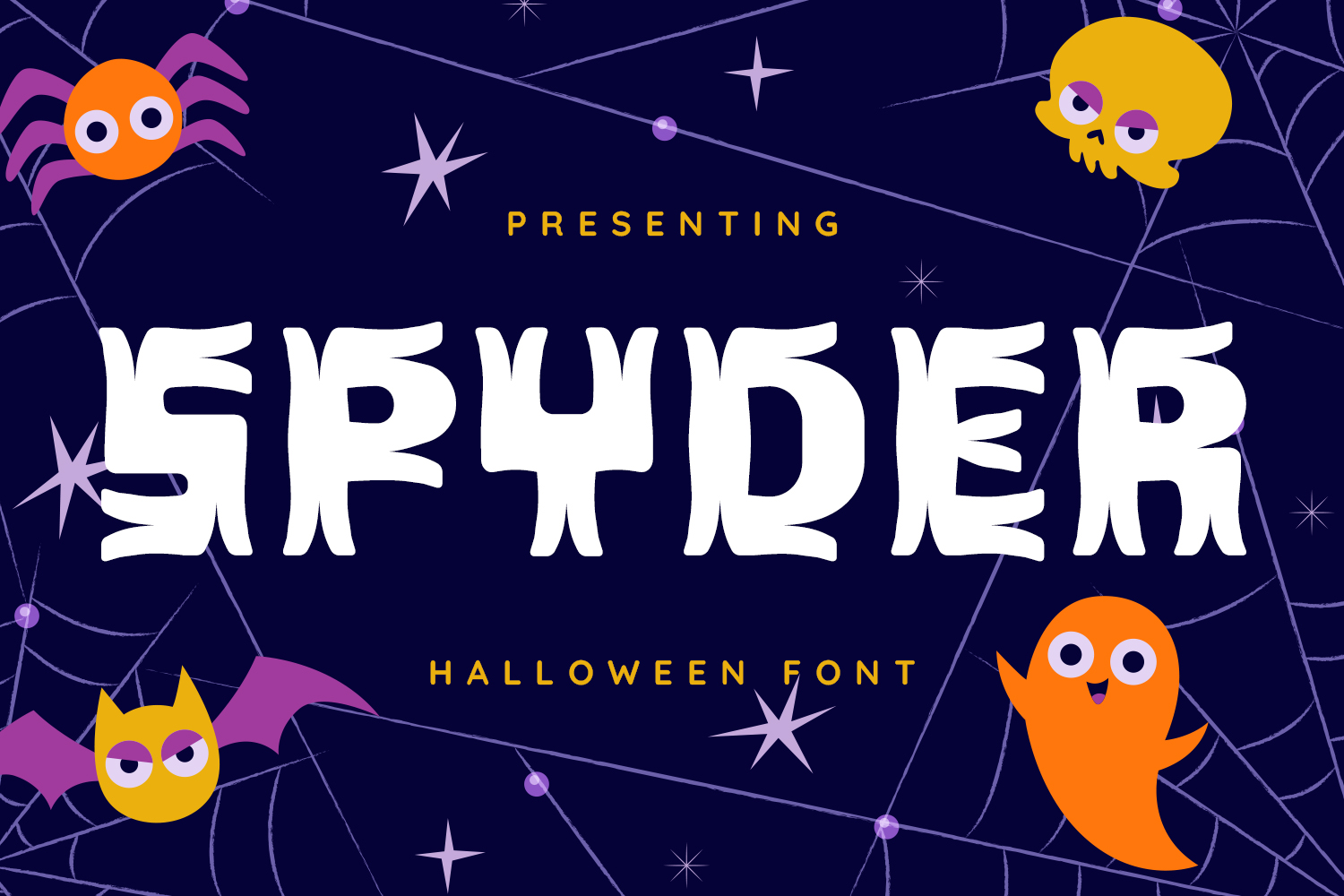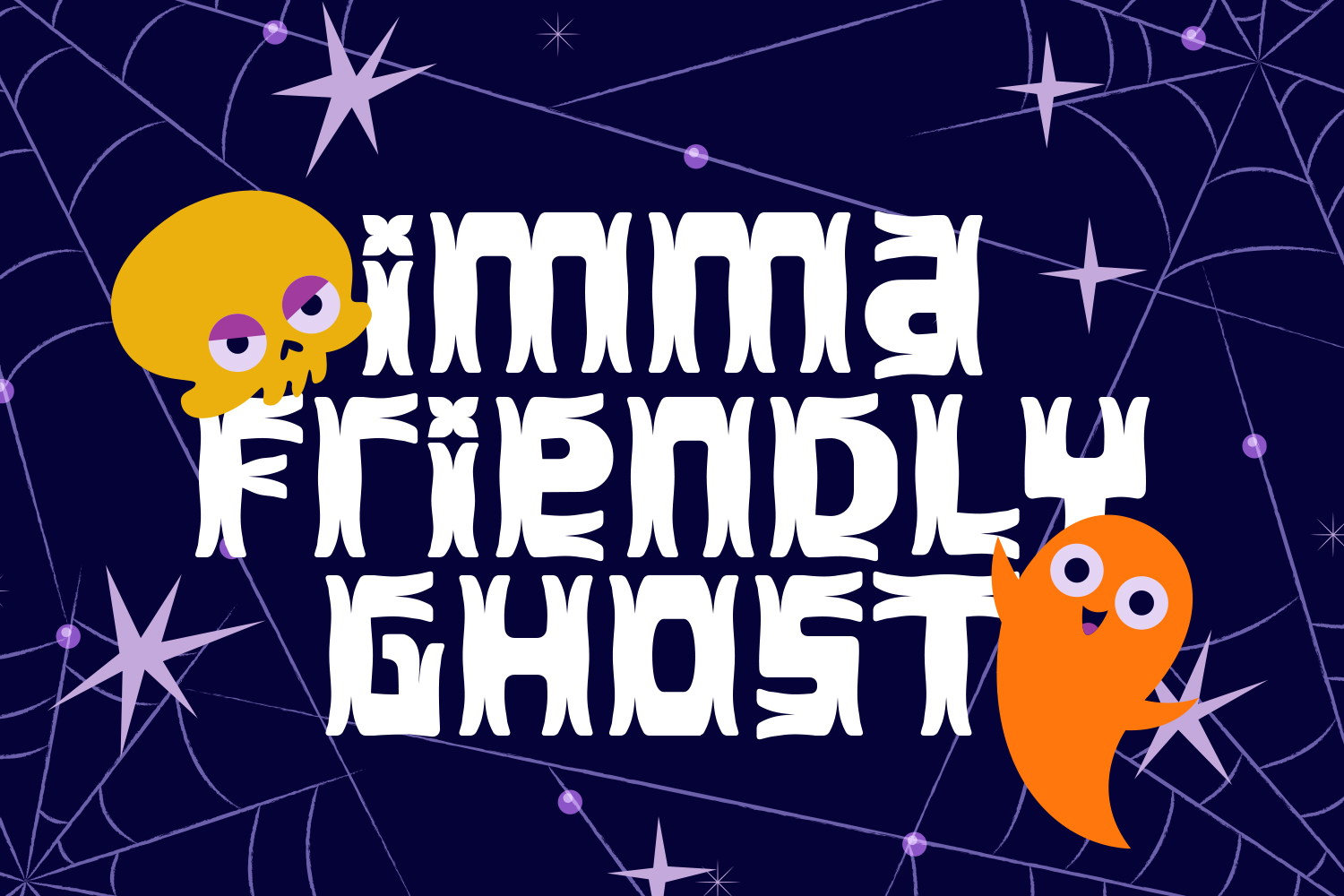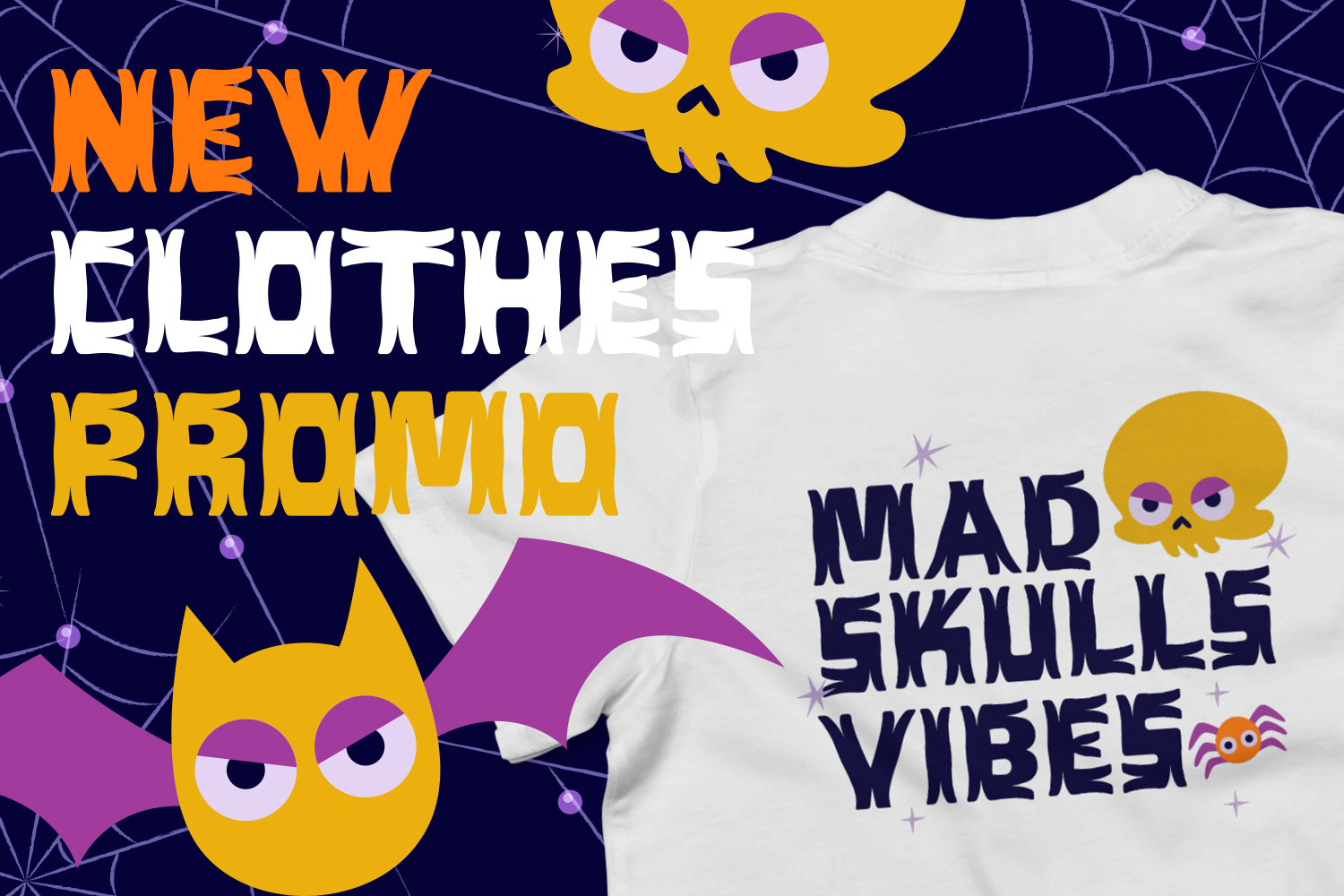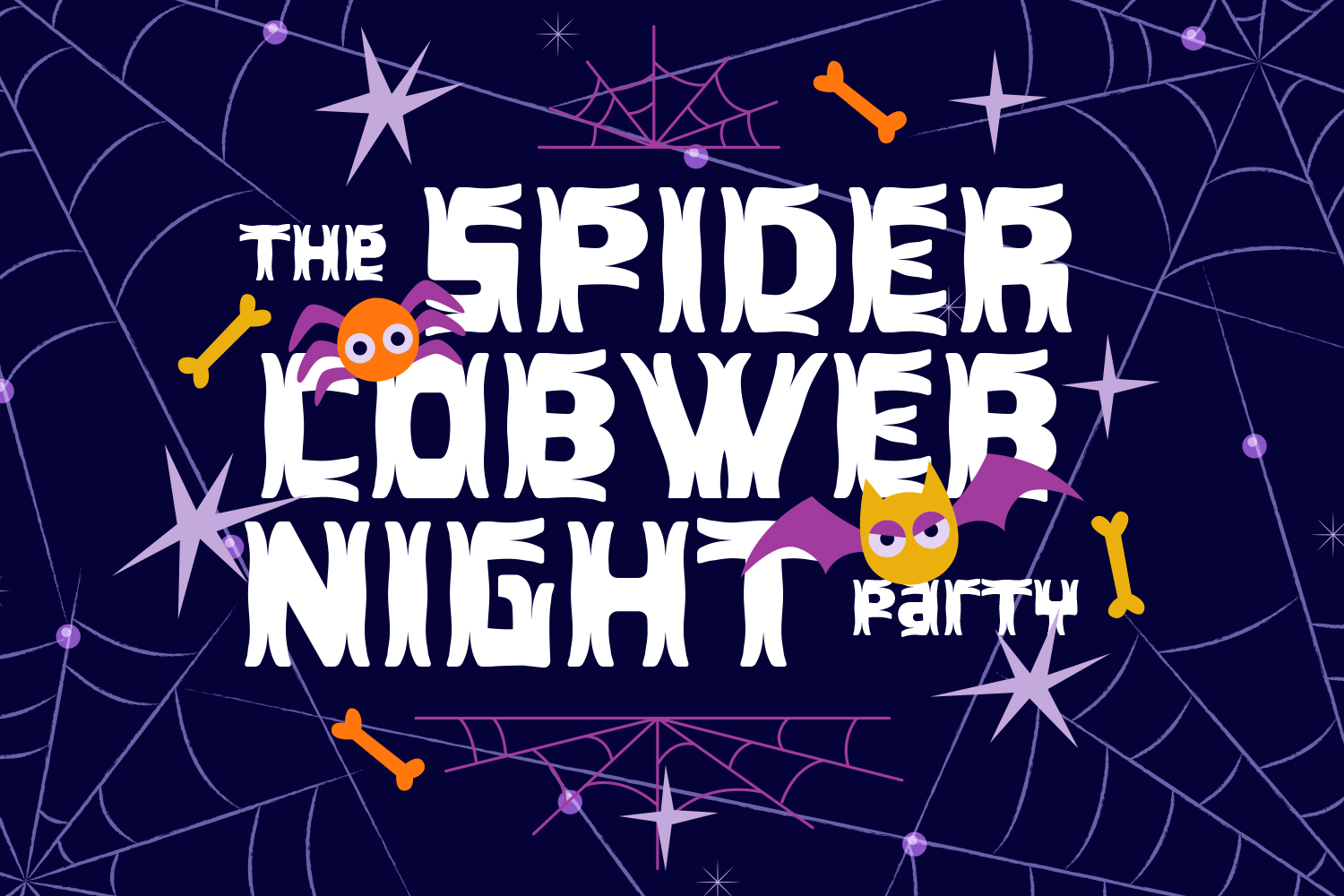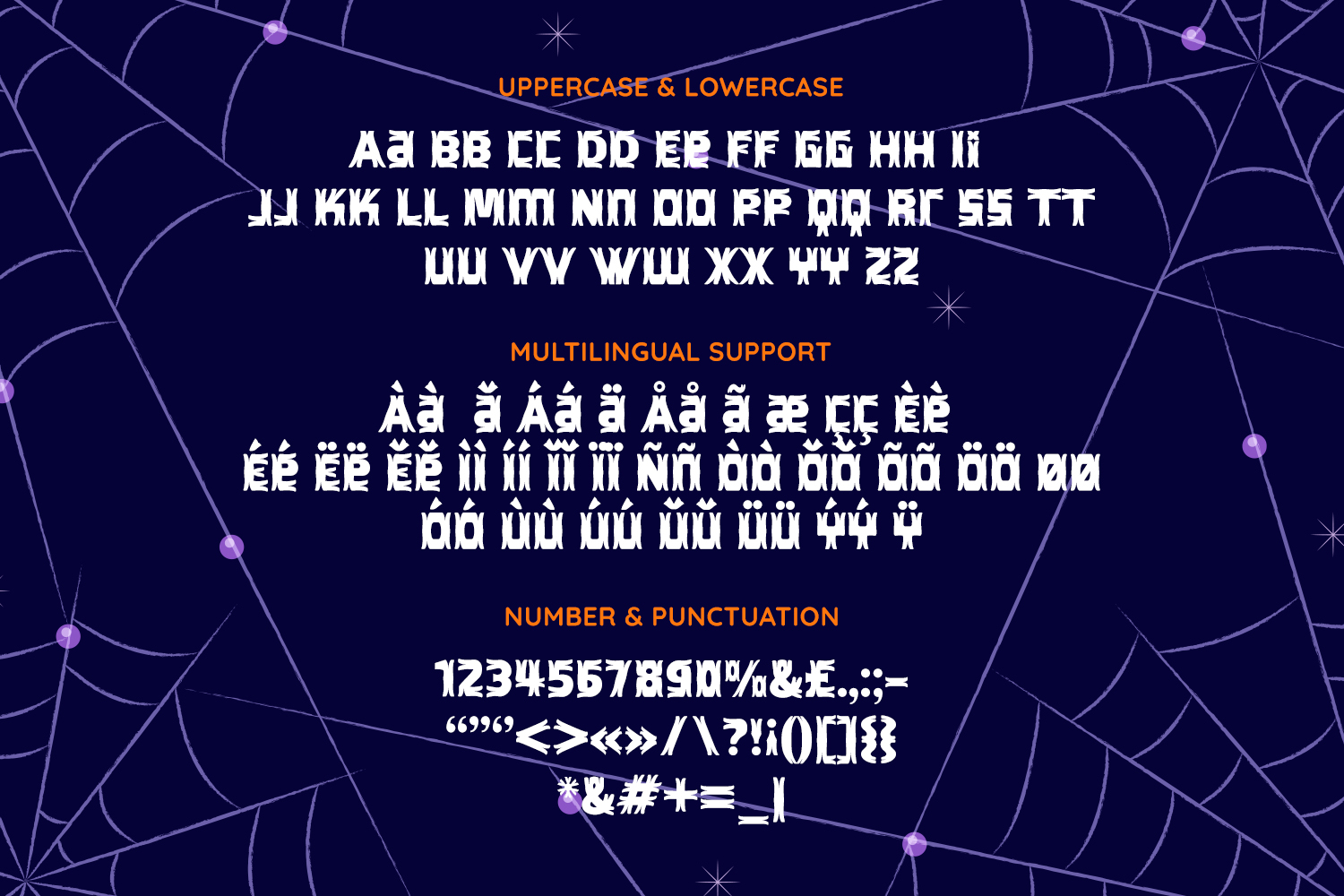
Spyder is a quirky and spooky Halloween font designed to capture the fun side of fright night. With bold, distorted letterforms that resemble tangled webs and monster claws, Spyder brings a playful eeriness to your designs. Perfect for Halloween parties, kid-friendly haunted events, or creepy-cute apparel, this font adds a bold personality to every word.
Spyder includes uppercase and lowercase letters, numbers, punctuation, and multilingual characters. Its dramatic, jagged style pairs well with Halloween illustrations like bats, ghosts, skulls, and spiders, making it ideal for posters, social media graphics, T-shirt designs, stickers, and themed packaging.